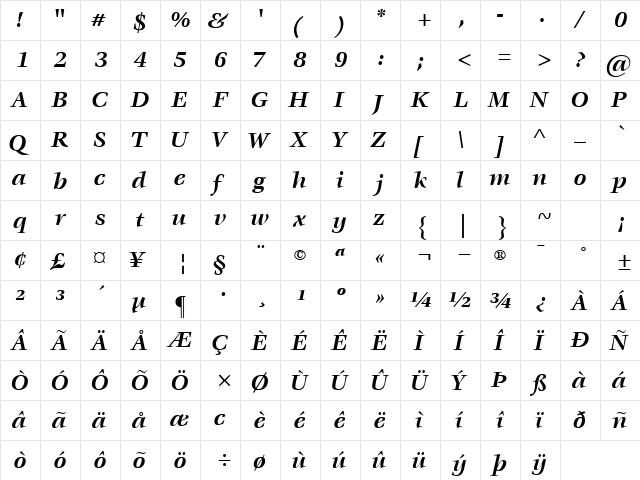
VoraceSSK BoldItalic
Design Context for VoraceSSK Typeface
VoraceSSK takes a measured approach to typography — its balanced proportions and neutral character make it a reliable workhorse for both digital and print work. The dynamic lean of this cut emphasises speed and emphasis in any layout. The heavy weight commands attention and anchors typographic hierarchies.
Pro Tip: Use VoraceSSK for emphasis, pull quotes, and subheadings where its slanted energy can add rhythm to the layout.